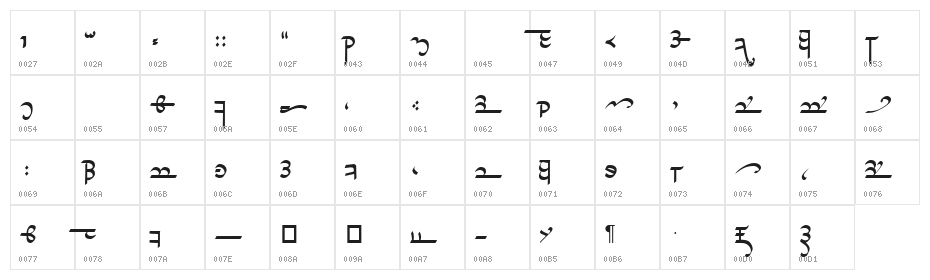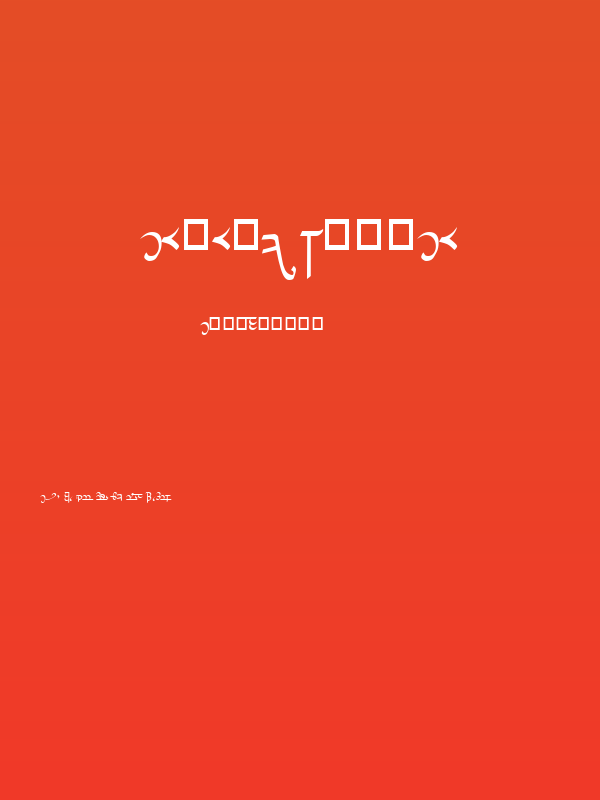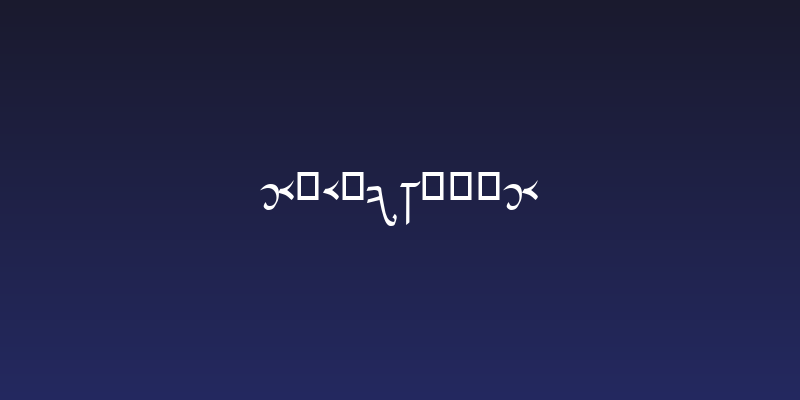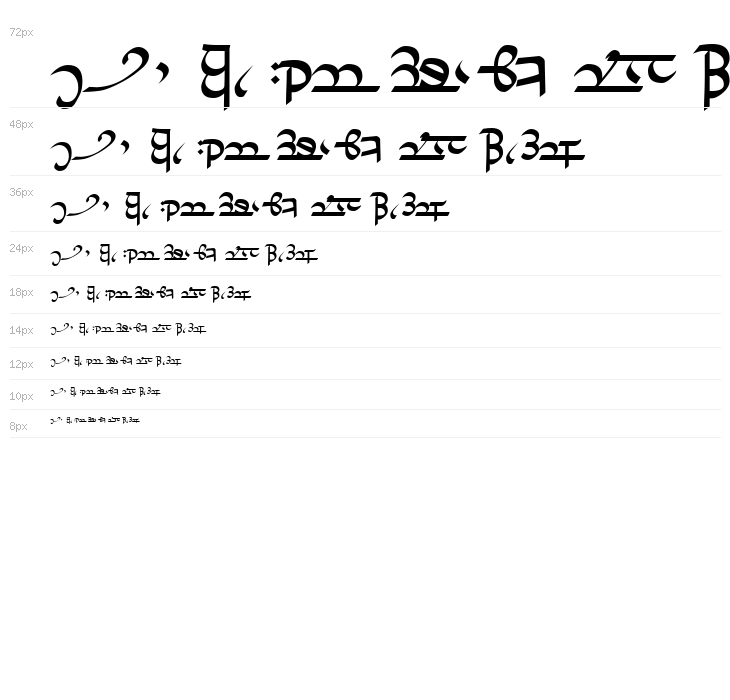
Tirion Sarati Font
Tirion Sarati Description
This script features a unique and intricate design, characterized by flowing curves and elegant strokes. The characters exhibit a harmonious blend of angular and rounded elements, creating a visually captivating appearance. The script's ornamental nature suggests a historical or fantasy-inspired aesthetic, making it suitable for creative and artistic projects. The characters are distinct and well-defined, with a consistent style that maintains readability while offering an artistic flair.
| Use Case | Logos, Artistic designs, Fantasy themes |
| Proposed Projects | Ideal for fantasy-themed projects, artistic designs, book covers, and decorative purposes. |